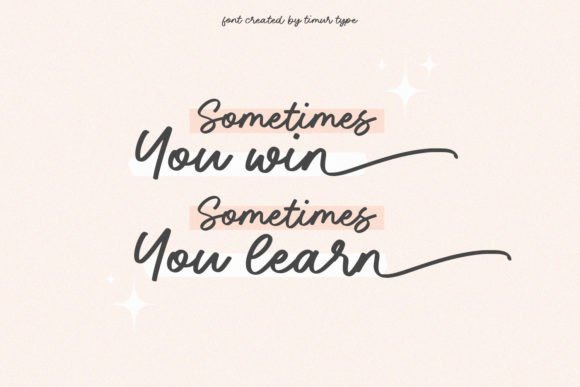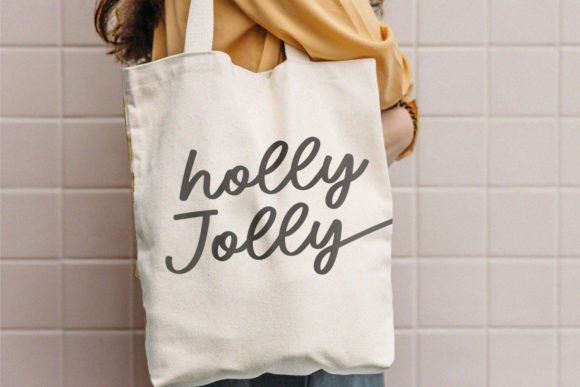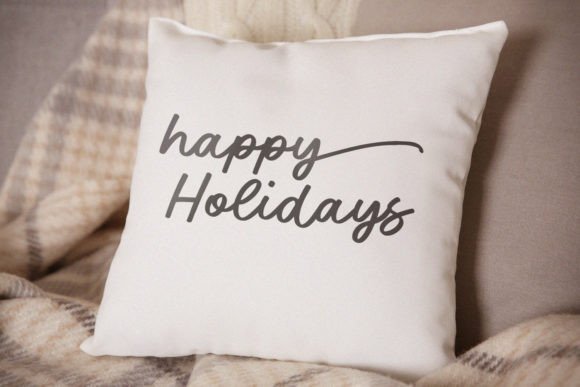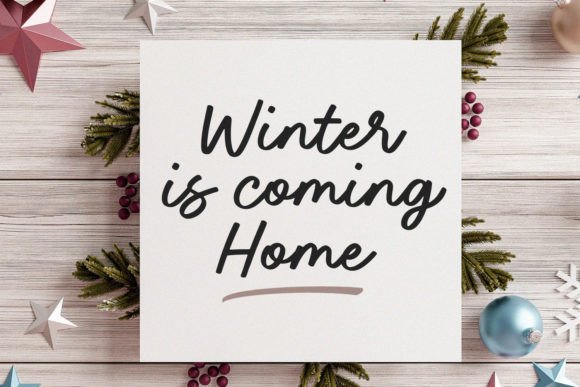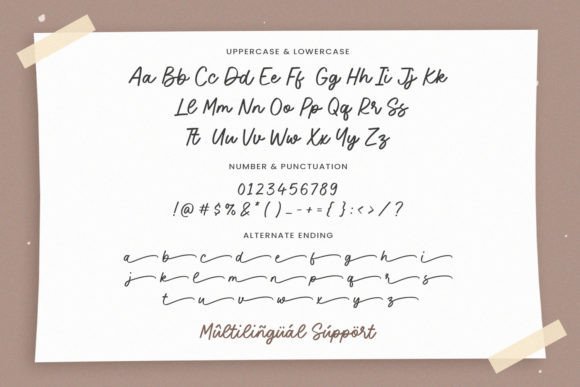
Bigbutter Font
About Bigbutter Font
The Bigbutter Font download is a refined and stylish handwritten script font designed to add a touch of elegance and personality to any project. Crafted with smooth curves and carefully balanced characters, this typeface is perfect for creatives who want to bring warmth and flair to their designs.
From romantic invitations to expressive branding, Bigbutter delivers the perfect blend of class and creativity. Its handcrafted look is ideal for both digital and print applications, offering excellent readability and visual appeal.
Elegant and Versatile Script Design
What sets the Bigbutter Font download apart is its ability to adapt to various design contexts without losing its charm. The letterforms feature a clean monoline stroke, making it feel personal yet polished. It brings a natural flow that mimics authentic handwriting while maintaining legibility across sizes.
Whether you’re working on heartfelt thank-you notes or professional product packaging, this font provides the balance between casual and elegant.
Here’s how you can use it:
• Wedding invitations and stationery
• Signature-style logos and personal branding
• Social media graphics and blog headers
• Fashion lookbooks and boutique labels
• Craft projects and digital scrapbooking
Bigbutter suits both formal and playful design aesthetics, making it a reliable choice in any creative toolbox.
Key Features of Bigbutter Font
• Handwritten script with a modern twist
• Smooth, flowing letterforms with balanced spacing
The Bigbutter Font download includes a full set of uppercase and lowercase characters, numbers, punctuation, and elegant ligatures to elevate your designs even more.
Designed for Creative Expression
Whether you’re a designer working on a boutique brand or a DIY enthusiast creating heartfelt gifts, Bigbutter Font download helps you express creativity and emotion. Its neat and stylish character pairs well with minimalist themes or layered with bold visuals for contrast.
Use Bigbutter for:
• Elegant monograms
• Branding kits
• Romantic quotes and art prints
• Gift tags and packaging labels
• Event flyers and signage
This font adds a sophisticated hand-lettered feel that transforms basic text into memorable visual elements.